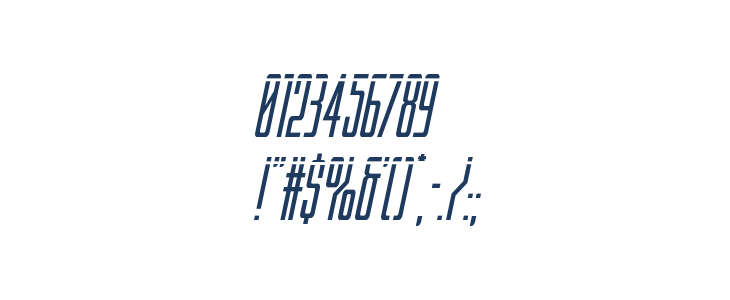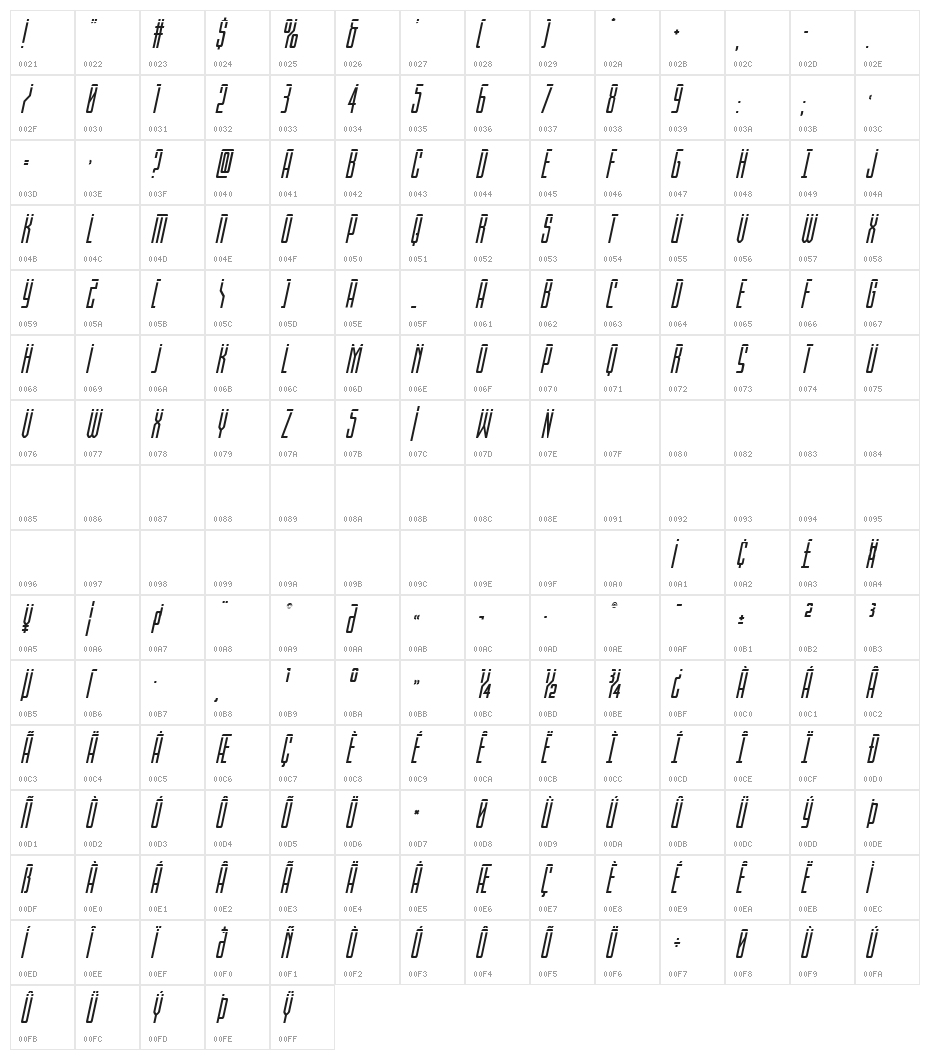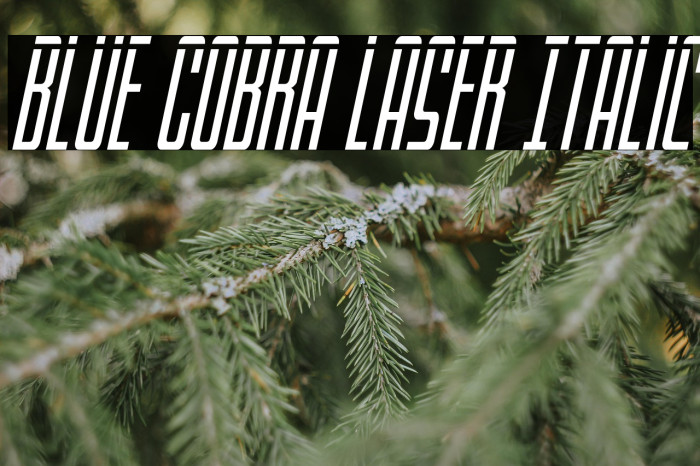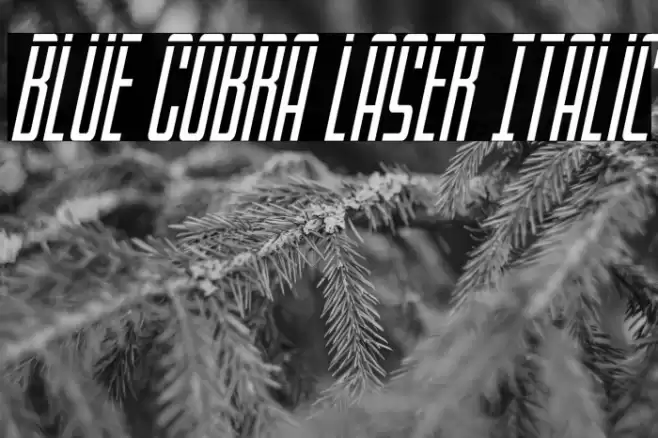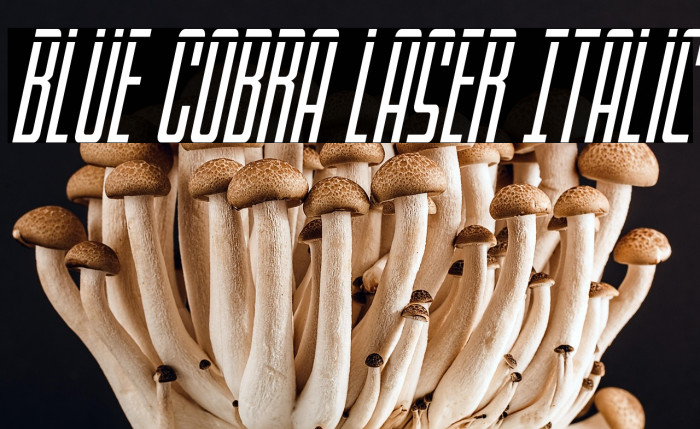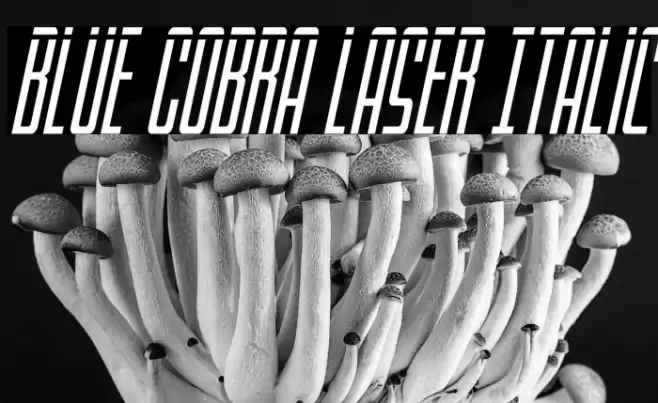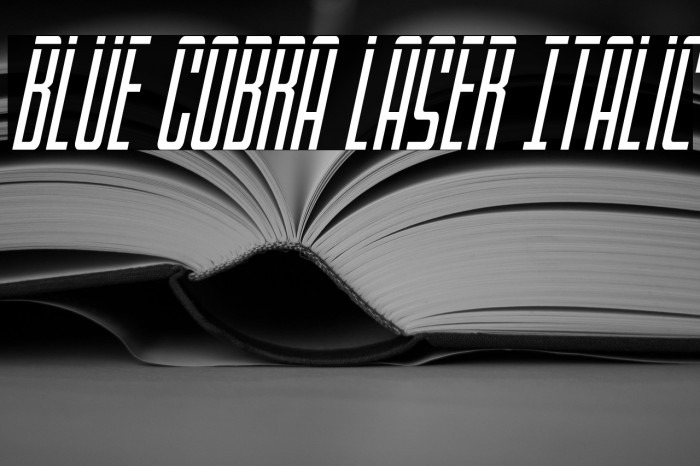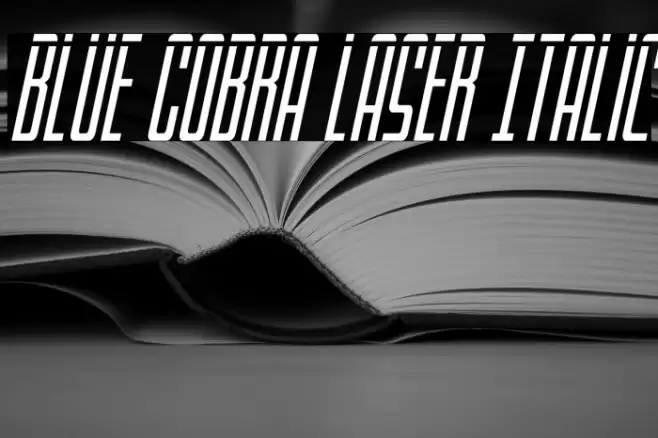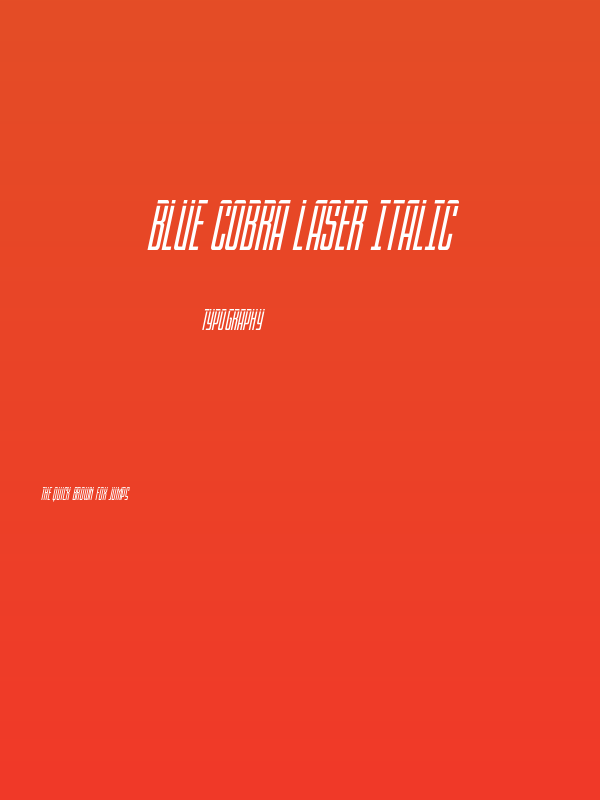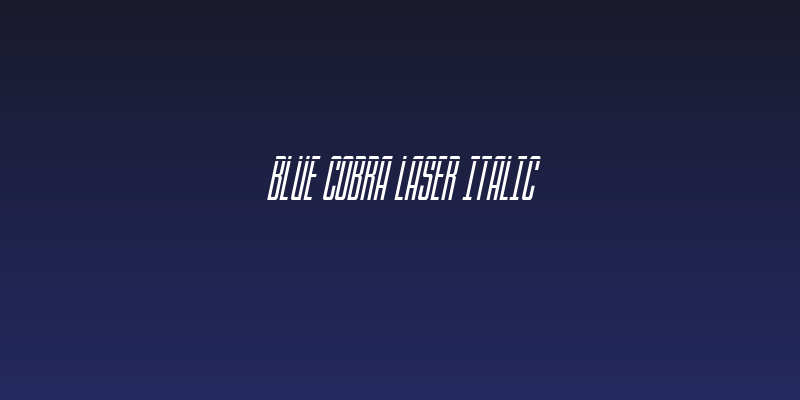
Blue Cobra Laser Italic Font
Blue Cobra Laser Italic Description
This font features a sleek, futuristic design with a strong italic slant, giving it a dynamic and fast-paced appearance. The characters are elongated and narrow, with sharp angles and clean lines that convey a sense of speed and modernity. The uppercase and lowercase letters maintain a consistent style, with a uniform height that enhances readability. The numerals and special characters are designed to match the overall aesthetic, ensuring a cohesive look across all text. This font's unique style makes it ideal for projects that require a bold, modern statement.
| Proposed Projects | Ideal for branding, sports team logos, tech-related projects, and modern advertising campaigns. |